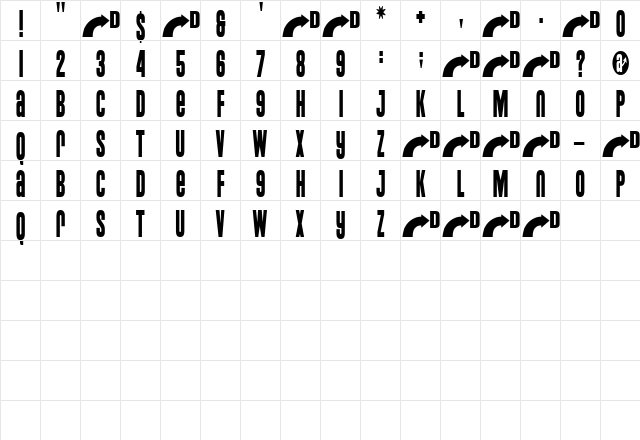
Titanium Regular
Design Context for Titanium Typeface
Titanium is a composed and adaptable typeface that performs quietly and consistently across a wide range of design contexts.